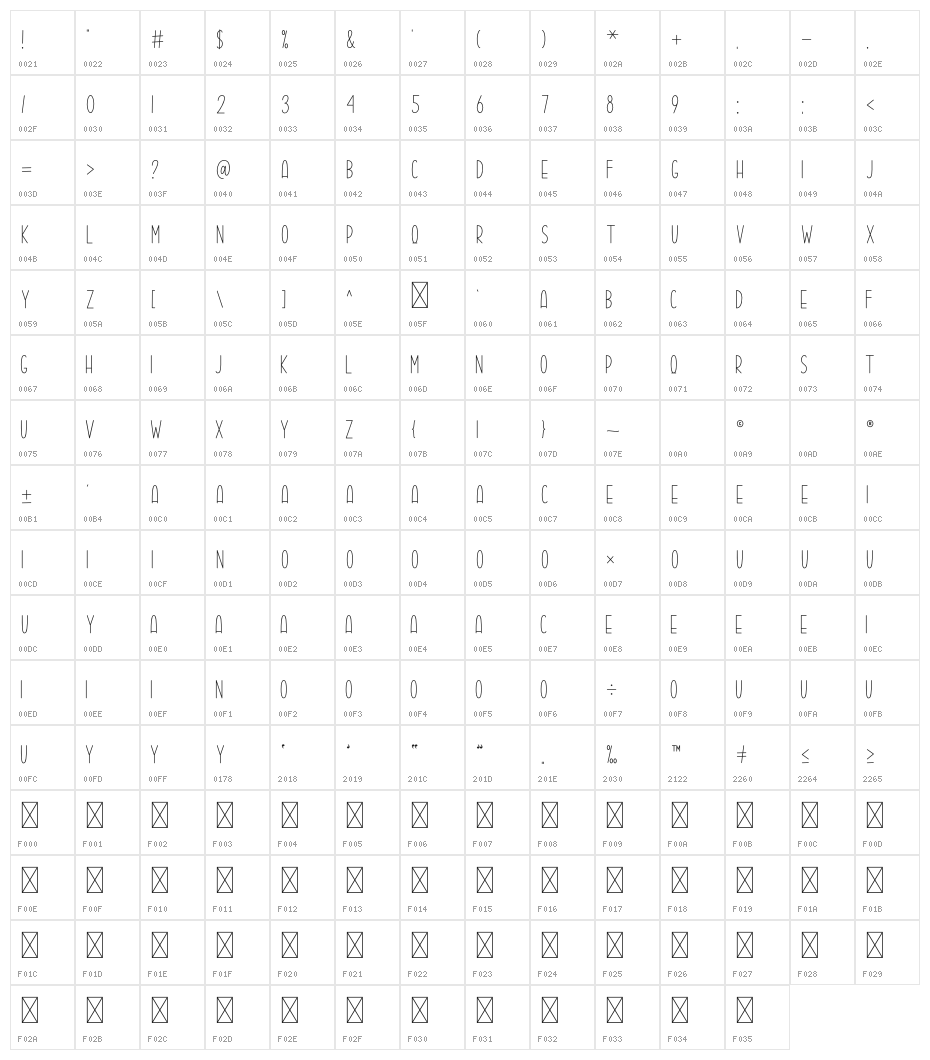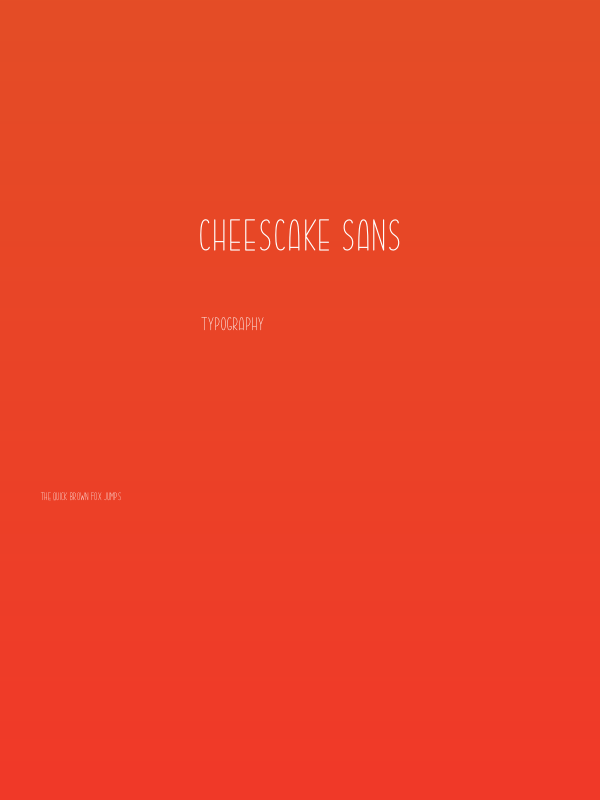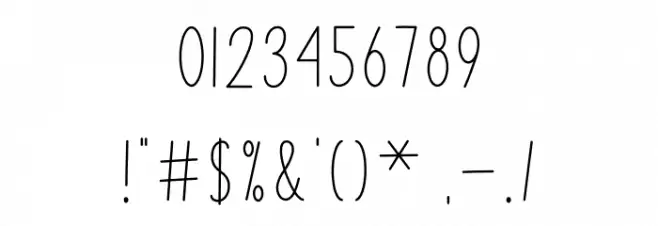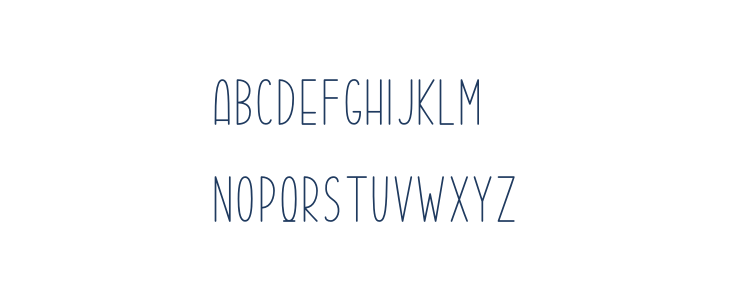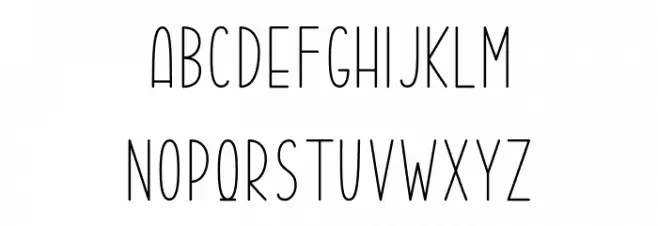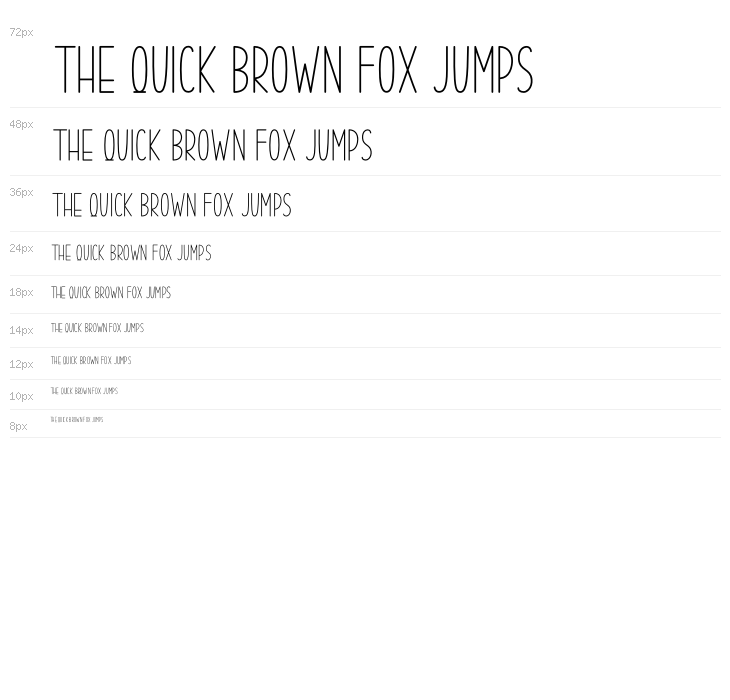
Cheescake Sans Font
Cheescake Sans Description
A tall, narrow sans-serif typeface with uniform stroke width, rounded terminals, and a playful, handwritten feel. The characters are monoline with generous spacing and a friendly, approachable appearance.
| Overall Style | Handwritten, Casual, Modern |
| Use Case | Headlines, Posters, Invitations, Informal branding |
| Proposed Projects | Children’s books, greeting cards, casual branding, posters, invitations. |